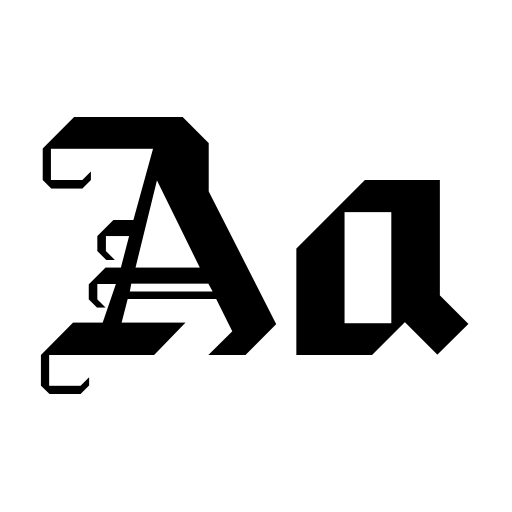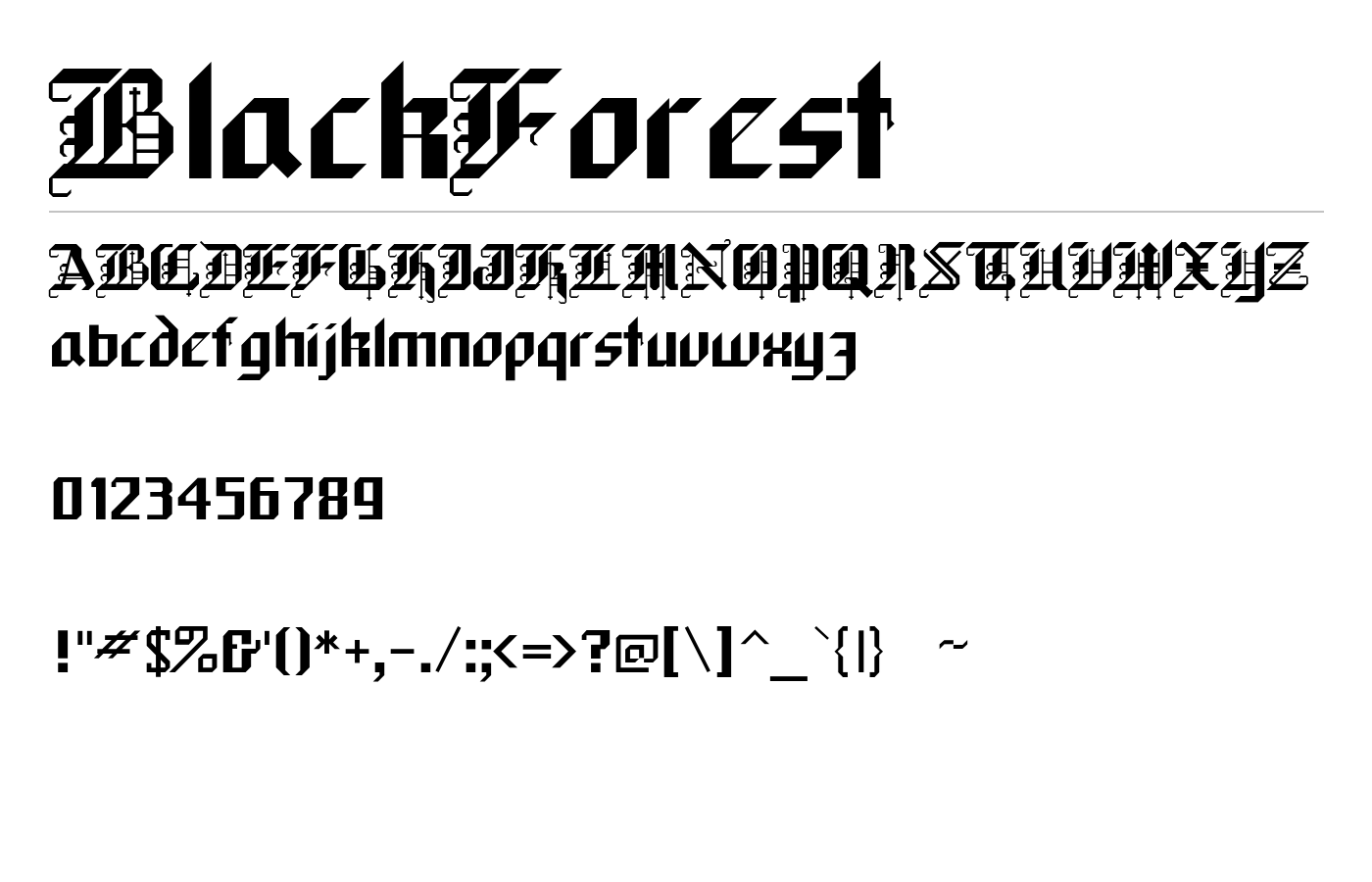
BlackForest is a bold, blackletter-style font with sharp, angular edges and intricate decorative details on its uppercase letters, evoking a strong medieval or gothic feel. Its heavy weight and condensed structure make it ideal for striking headlines, logos, or branding that seeks to convey tradition, strength, or a dark, vintage aesthetic. This font works best in display settings where its distinctive style can stand out and capture attention.
BlackForest Font
About BlackForest Font